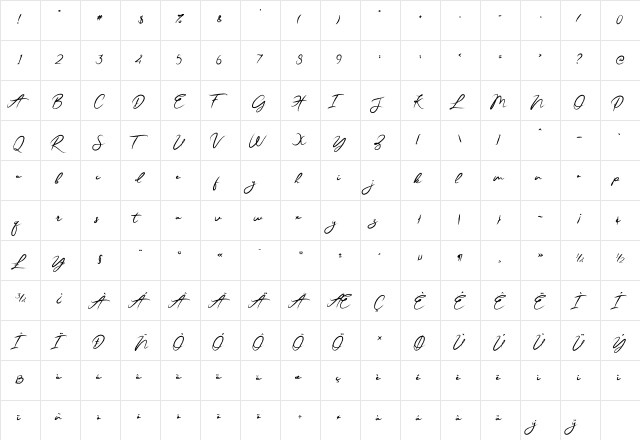
Jester Brush Regular
Design Context for Jester Brush Typeface
Jester Brush flows with the natural rhythm of handwritten lettering, making it ideal for designs that call for warmth and personal expression.
Font Pairing: Combine Jester Brush with a simple geometric sans for maximum contrast — the tension between flowing curves and clean structure is a classic typographic pairing.
Pro Tip: Pair Jester Brush with a clean sans-serif for supporting text. The contrast between fluid script and geometric structure creates an elegant typographic hierarchy.